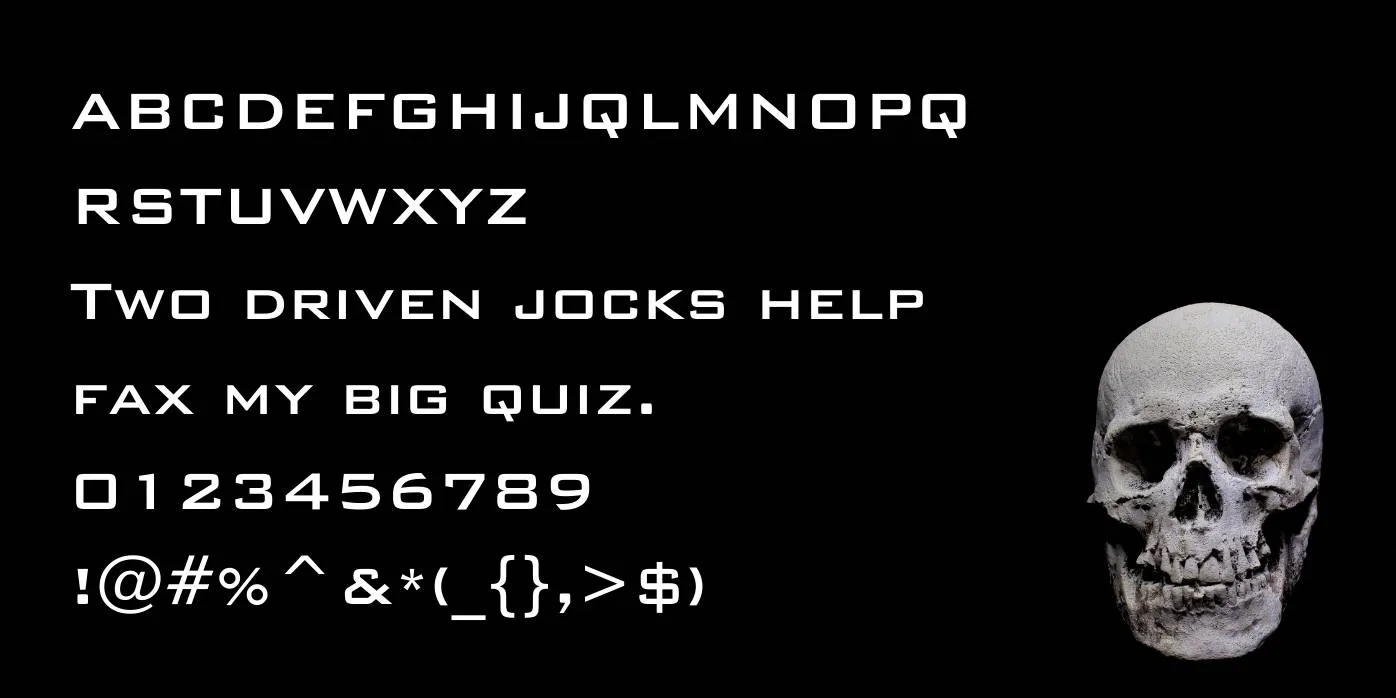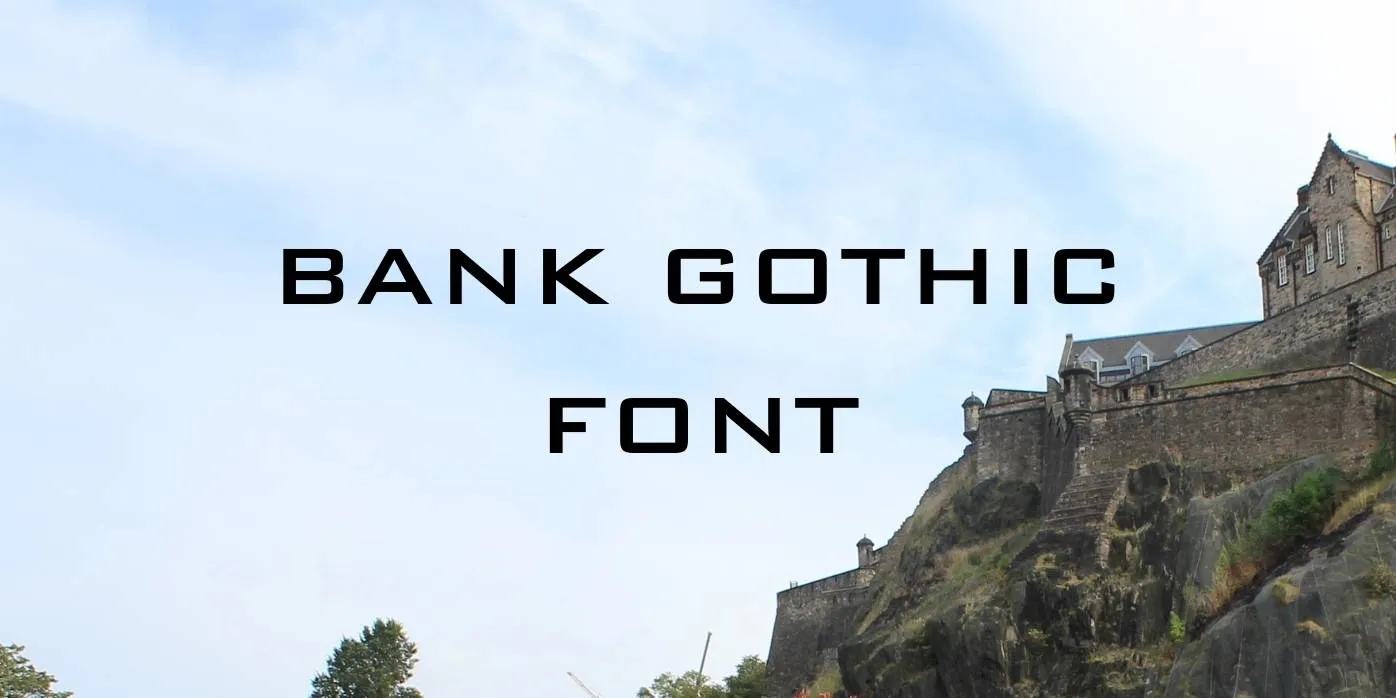
Bank Gothic Font
Bank Gothic font is an elegant and simple font that has a geometrical look and nice style. It belongs to a Geometric typeface family and the creator of this best font is Morris Fuller Benton. It has TTF features and is free for personal use. The font has special glyphs it includes only in Bold weight.
It has Uppercase letters, Lowercase letters, Numbers / Numerals, and uses symbols also. It can support many international accent languages for international usage. The font’s characters have geometrical look with a huge Y-axis height. Its special geometrical characters provide extraordinary great loo to any kind of display design and project.